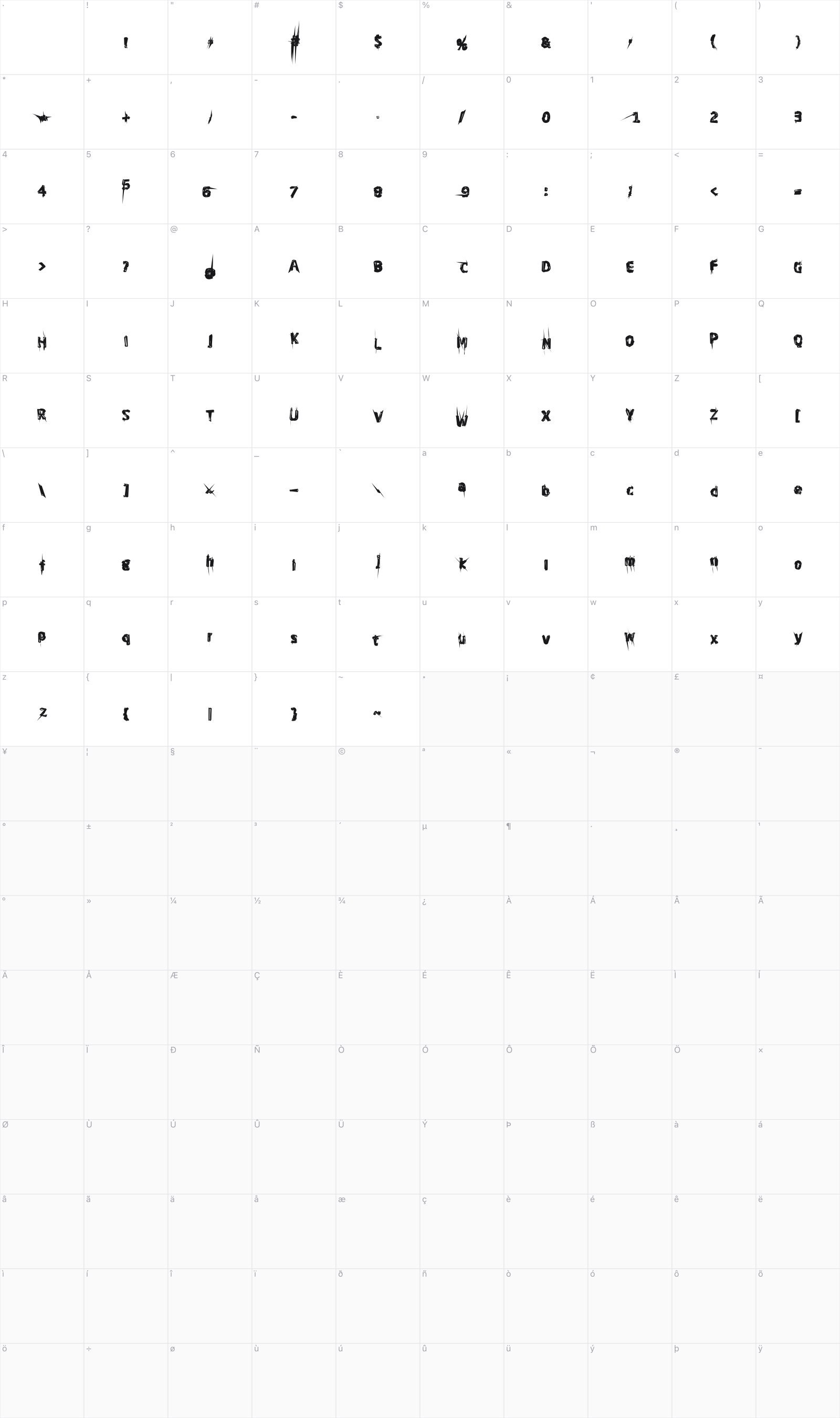
Ghost Everywhere
by 'Sanz Font
Ghost Everywhere is a dripping, horror-themed display face from 'Sanz Font with letterforms that look like they're melting or oozing downward. The effect is unmistakably Halloween, creepy without being illegible, landing it firmly in haunted house flyer and horror movie title territory. Best kept to headlines and short text where the dripping details can do their work at large sizes.